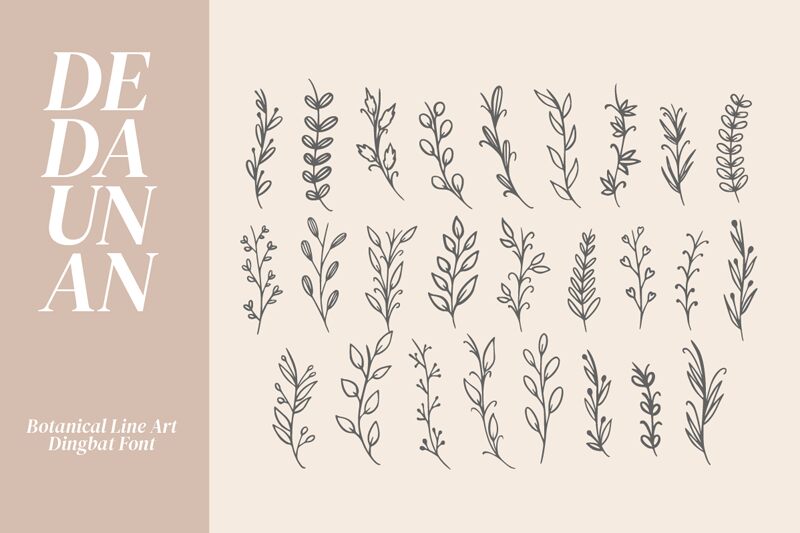
Dedaunan
Dedaunan, a stunning creation by Muhammad Yafinuha, is a captivating dingbats font that will transport you to the enchanting world of nature.
With its intricate botanical line art, this font is perfect for projects that celebrate the beauty and diversity of flora. Whether you're designing invitations for a garden wedding or creating packaging for organic products, Dedaunan will add an elegant touch and evoke a sense of natural wonder.
Let this unique font breathe life into your creative endeavors and infuse them with the magic of the great outdoors.